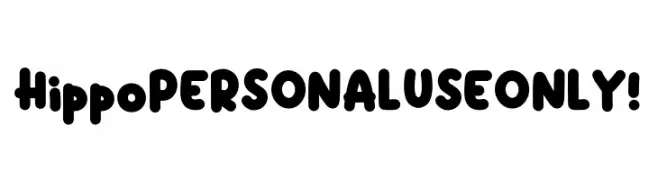
A bold, playful font with thick, rounded characters and a nostalgic 90s vibe.
A bold, playful retro font with thick, rounded strokes and whimsical curves.
A bold, playful font with thick, rounded strokes and a whimsical, retro style.
A bold, retro-inspired font with thick, rounded letterforms and a playful, nostalgic vibe.
A bold, playful font with thick, rounded strokes and a whimsical appearance.
A playful, bold font with rounded, bubbly characters ideal for fun and informal projects.